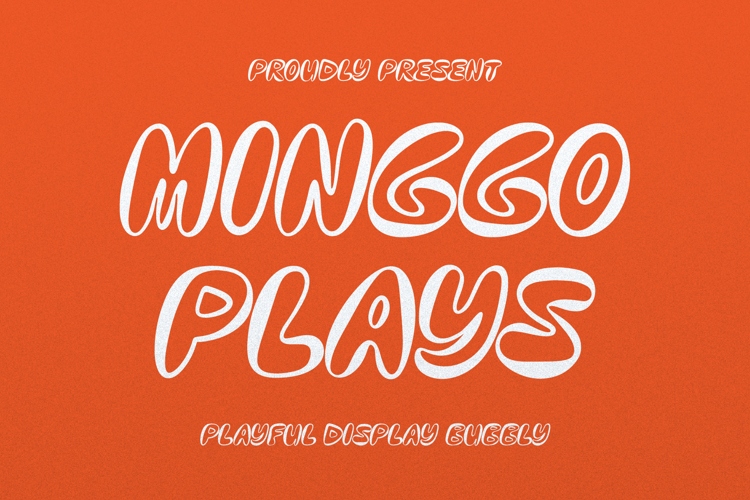
Minggo Plays Font
Minggo Plays | Playful Display, is suitable for any projects such as: logos, branding projects, homeware designs, product packaging, mugs, quotes, posters, shopping bags, t-shirts, book covers, name card, invitation cards, greeting cards, label, photography, watermark, special events, and all your other lovely projects that need a Playful taste.